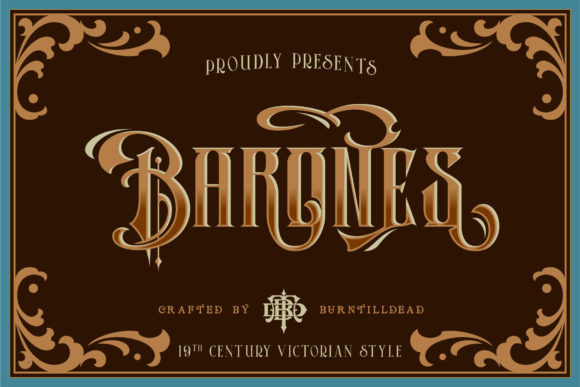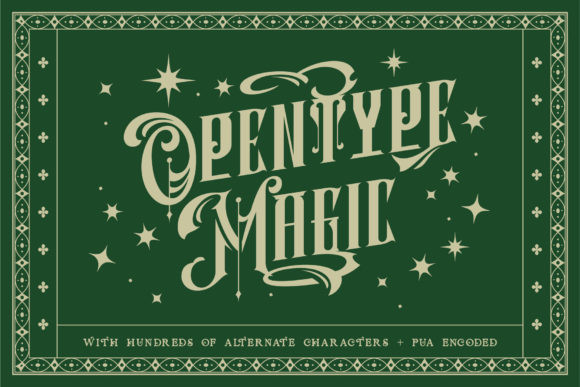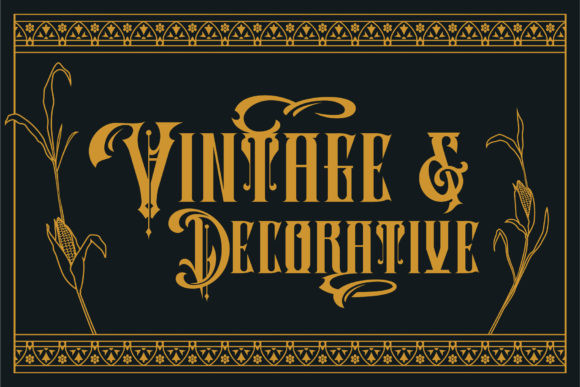
Barones Font
Barones is an imposing, elegant and vintage styled blackletter font. Add this font to your library, and employ it to your most favorite creations. Barones is PUA encoded which means you can access all of the glyphs and swashes with ease!